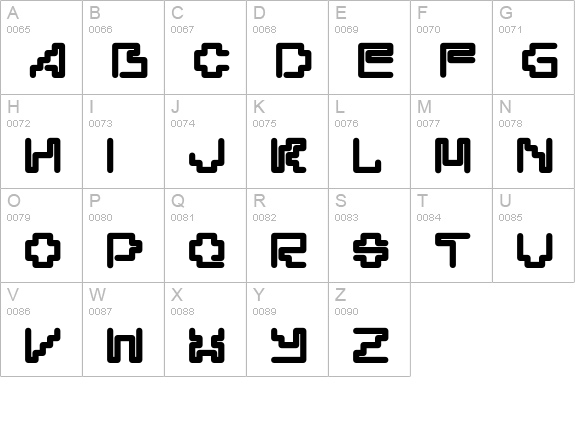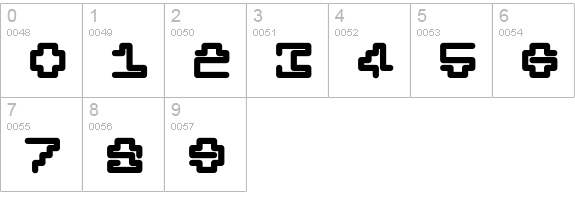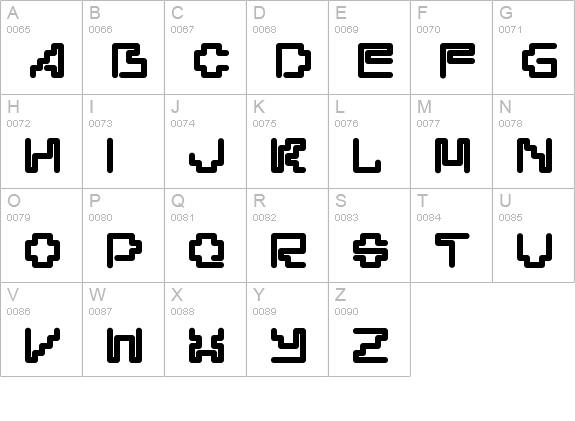
Silesia-Heavy is a heavy, high-impact variant in the Silesia typeface family \xE2\x80\x94 well suited to high-impact headlines, posters, and display advertising.
Silesia-Heavy font is a bold and powerful typeface that exudes strength and confidence. Its thick lines and sturdy structure make it perfect for headlines, titles, and attention-grabbing designs. This font commands attention and ensures that your message is delivered with impact. With its striking presence, Silesia-Heavy font is sure to make a lasting impression. Whether you're designing a poster, a logo, or a website, this font will add a touch of weight and authority to your project. Its versatility allows it to be used in various design contexts, from modern and edgy to classic and timeless. What's even better is that Silesia-Heavy font is available for free! That's right, you can freely download this font at FontsMarket.com. This means that you can enhance your designs without any additional cost. It's a great opportunity to add a high-quality font to your collection without breaking the bank. So, why wait? Elevate your designs with the impactful Silesia-Heavy font. Download it for free at FontsMarket.com and let your creativity shine.